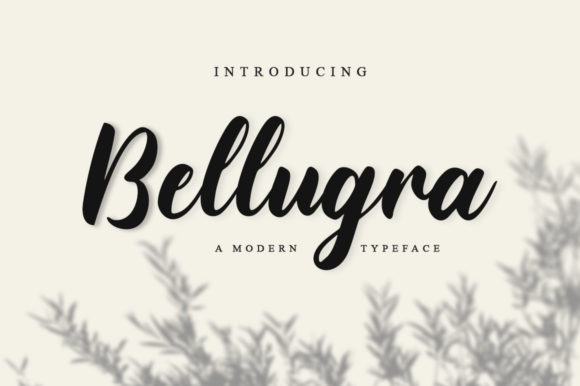
Unleash the Elegance: Bellugra Script Font - Where Charm and Professionalism Intertwine
In a world saturated with digital monotony, Bellugra emerges as a captivating script font, a symphony of grace and sophistication, ready to transform your creative endeavors into masterpieces. With its playful characters dancing along the baseline, Bellugra adds a touch of whimsy to your most important business documents, making them stand out from the mundane.
Step into a realm of boundless creativity, where Bellugra's enchanting swashes and beautiful glyphs await your exploration. Effortlessly accessible through PUA encoding, these embellishments elevate your designs, adding an extra layer of charm and uniqueness. Let Bellugra's elegance captivate your audience, leaving an indelible mark on their minds.
Experience the allure of Bellugra, a font that seamlessly blends the beauty of handwritten letters with the precision of digital artistry. Its graceful curves and delicate flourishes lend a touch of refinement to your business documents, conveying a sense of professionalism and attention to detail. Bellugra transforms ordinary text into captivating narratives, drawing readers into your words and leaving them spellbound.
With Bellugra, your business documents transcend the boundaries of the ordinary, becoming works of art that reflect your dedication to excellence. Its charming, playful characters exude a sense of warmth and approachability, inviting readers to engage with your content. Bellugra breathes life into your words, making them resonate with your audience and leaving a lasting impression.
Embrace the power of Bellugra, the script font that captivates and inspires. Let its enchanting characters dance across your business documents, transforming them into captivating works of art. Experience the fusion of elegance and professionalism that Bellugra offers, and elevate your creative endeavors to new heights. Download Bellugra today and unleash the boundless possibilities of your imagination.